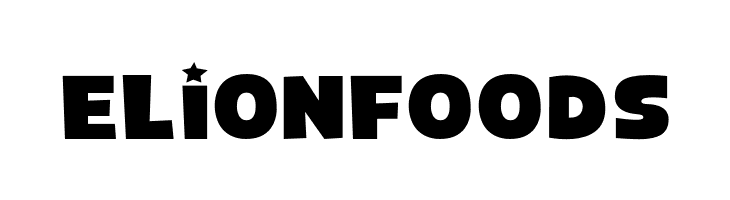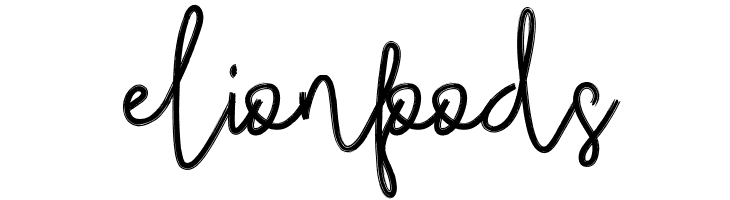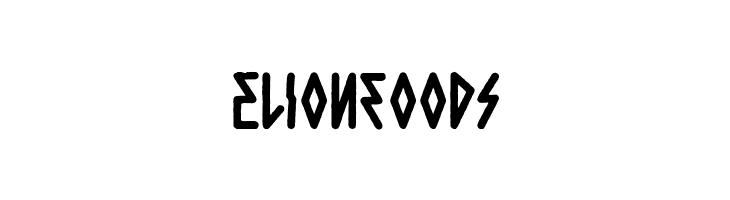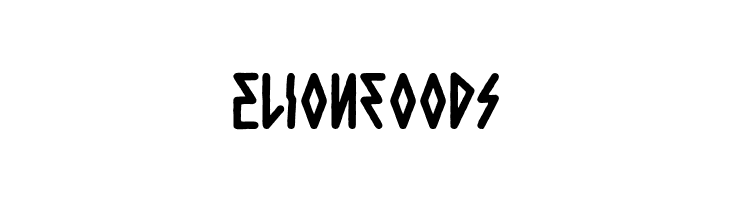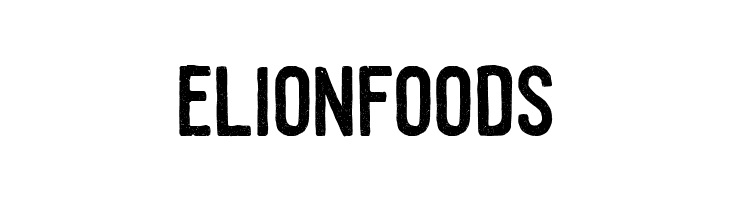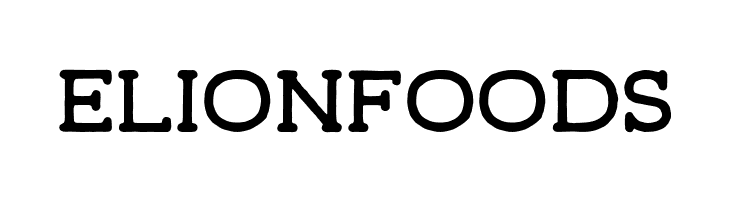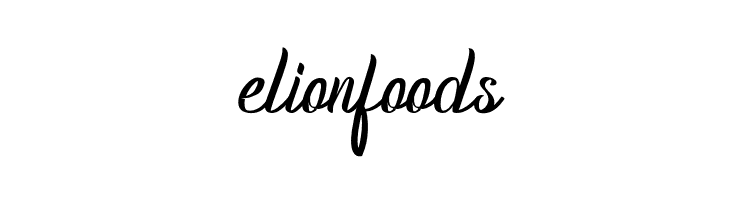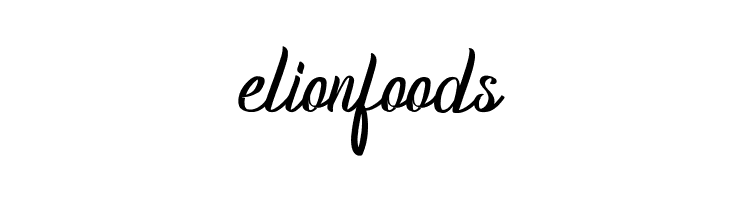
A bold, playful font with chunky design and star-accented 'I'.
A lively and expressive handwritten font with fluid strokes and elegant flair.
A bold, cursive font with flowing, interconnected strokes.
A bold, angular font with a futuristic and edgy design.
A bold, angular font with geometric shapes and strong presence.
A versatile font combining vintage decorative script with bold, distressed uppercase letters.
A bold slab serif font with a vintage yet modern appeal.
A bold, vintage-style font with a rugged, industrial feel.
A dynamic and elegant script font with flowing cursive letterforms.
A dynamic and flowing script font with elegant, cursive letterforms.